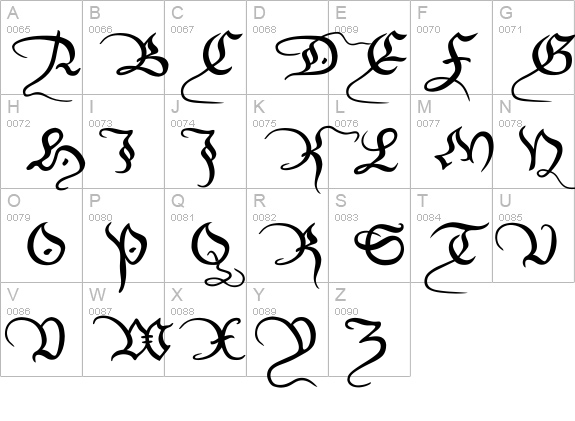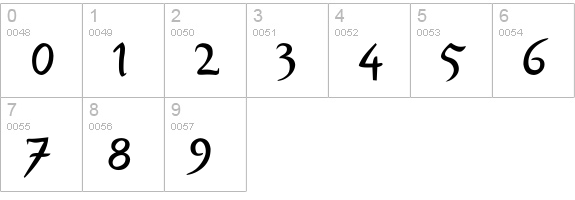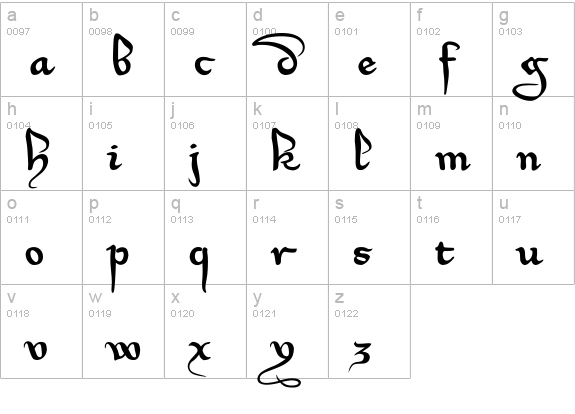
Xirwena Font Details
Xirwena font is a stunning display typeface that exudes elegance and sophistication. With its graceful curves and unique letterforms, Xirwena is perfect for adding a touch of luxury to your design projects. This font is versatile and can be used for a variety of purposes, from branding to editorial design. The best part about Xirwena font is that it is completely free to download at FontsMarket.com. This means you can easily access this beautiful typeface and incorporate it into your work without any cost. Whether you're a professional designer or a hobbyist looking to elevate your creations, Xirwena font is a fantastic choice that will surely impress. Download this exquisite font today and let your creativity shine with Xirwena.